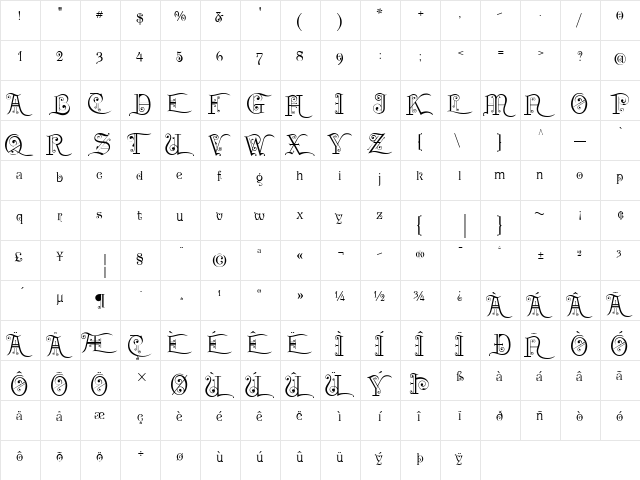
P22 Kilkenny Swash Eureka
DesignerPaul Hunt
Design Context for P22 Kilkenny Typeface
P22 Kilkenny brings a calligraphic fluidity to the page — its connecting strokes and expressive curves give it an unmistakably human quality.
Font Pairing: Combine P22 Kilkenny with a simple geometric sans for maximum contrast — the tension between flowing curves and clean structure is a classic typographic pairing.
Pro Tip: Use P22 Kilkenny for short runs of text — names, titles, or taglines. Extended body copy in script faces tires the eye quickly.